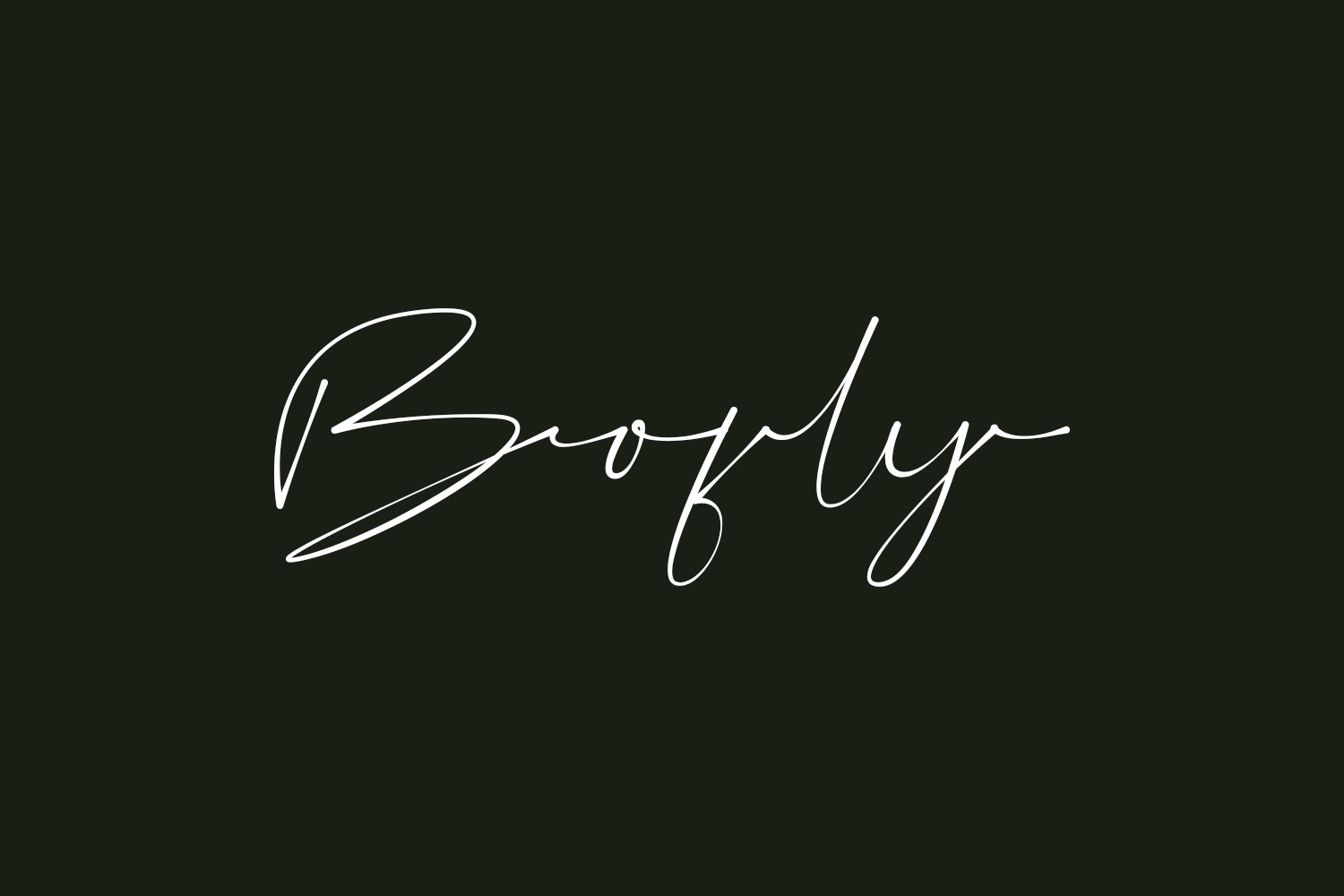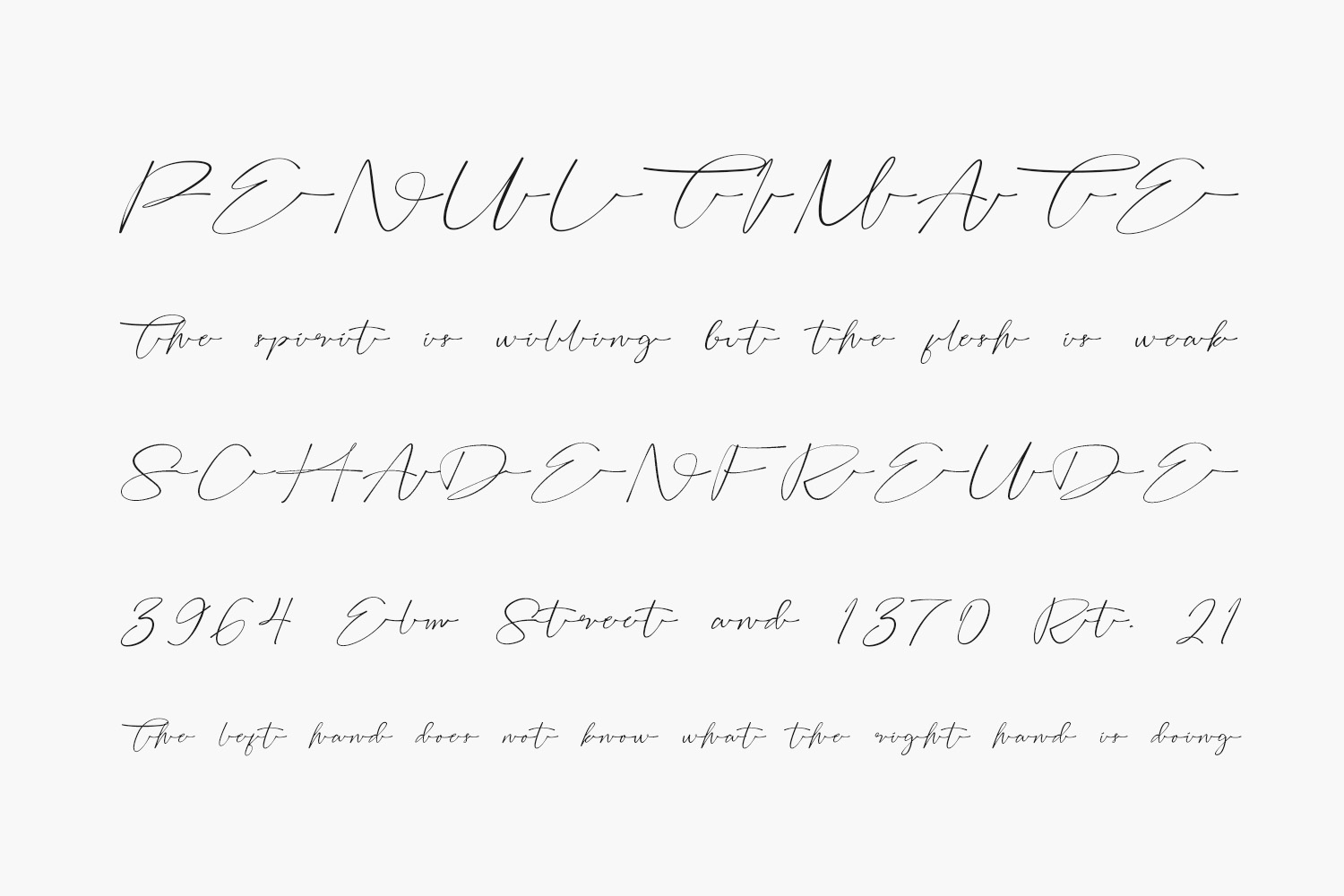
Discover the enchantment of Bofly Free Font, a versatile handwritten font that lends itself to a myriad of applications, from greeting cards to headlines. This script font is sure to infuse a romantic touch into your next project, adding a distinctive and captivating vibe. Bofly Free Font was designed by Jadatype and is free for personal use only. Please purchase the full version for commercial use.